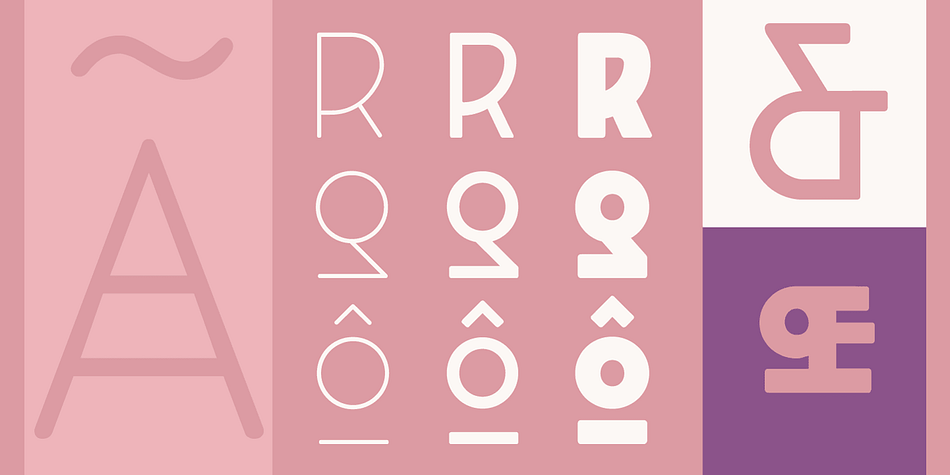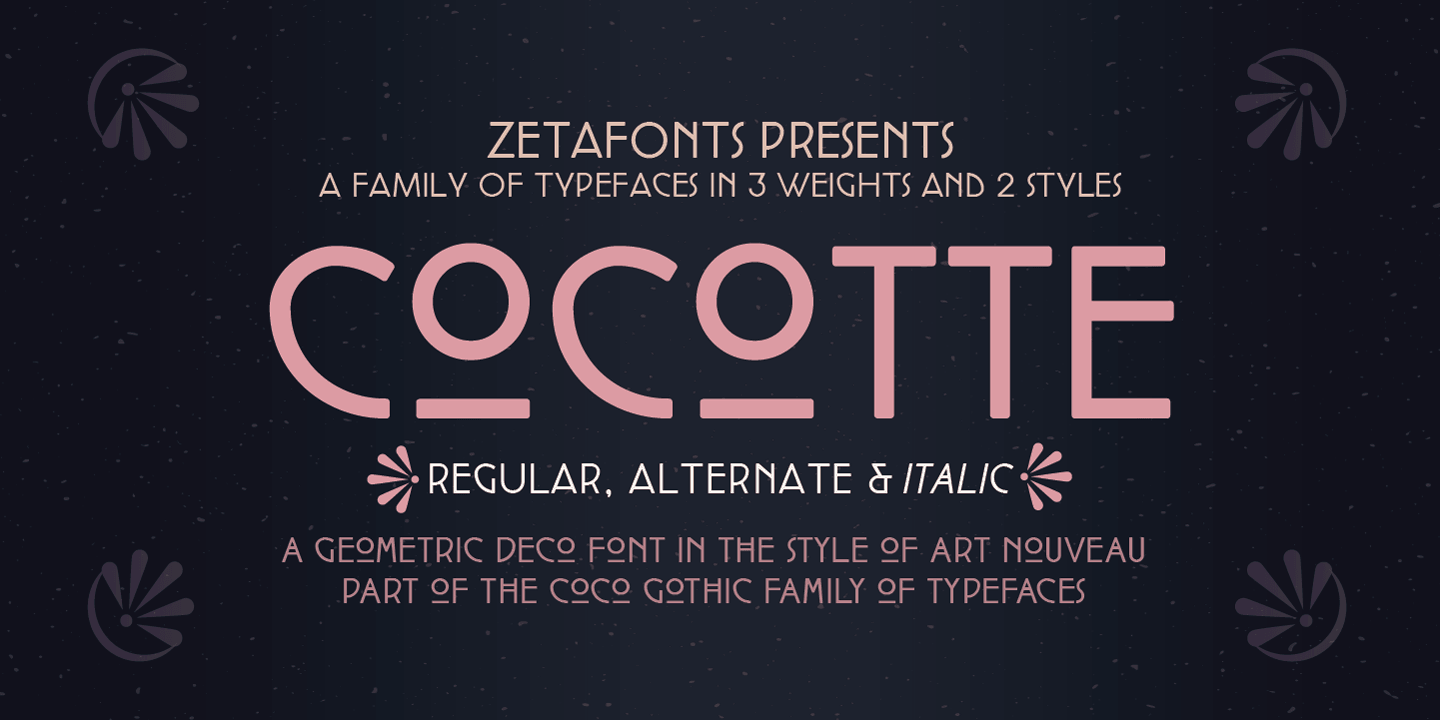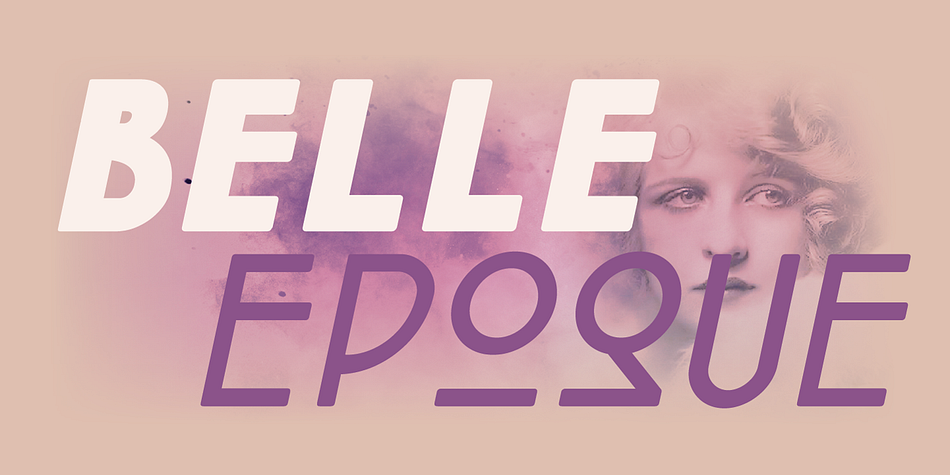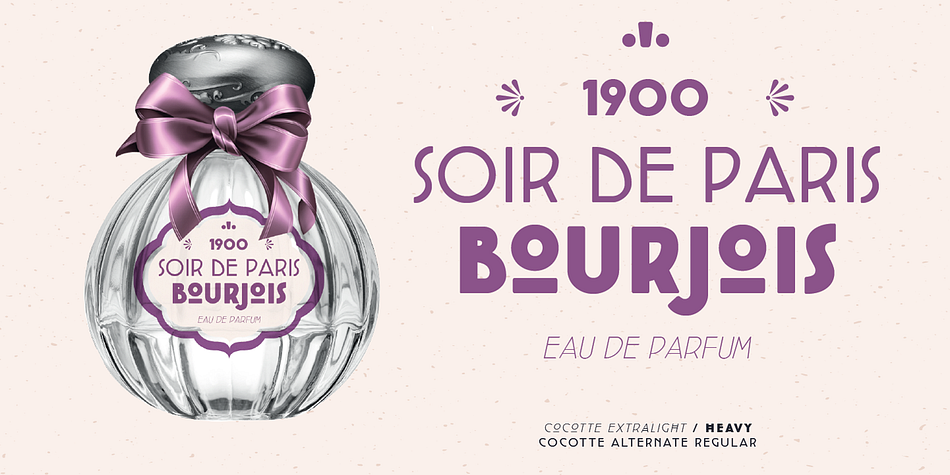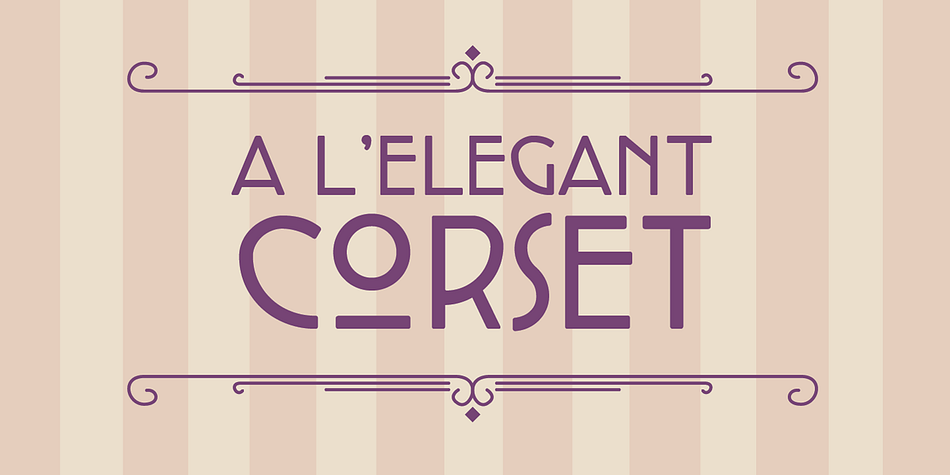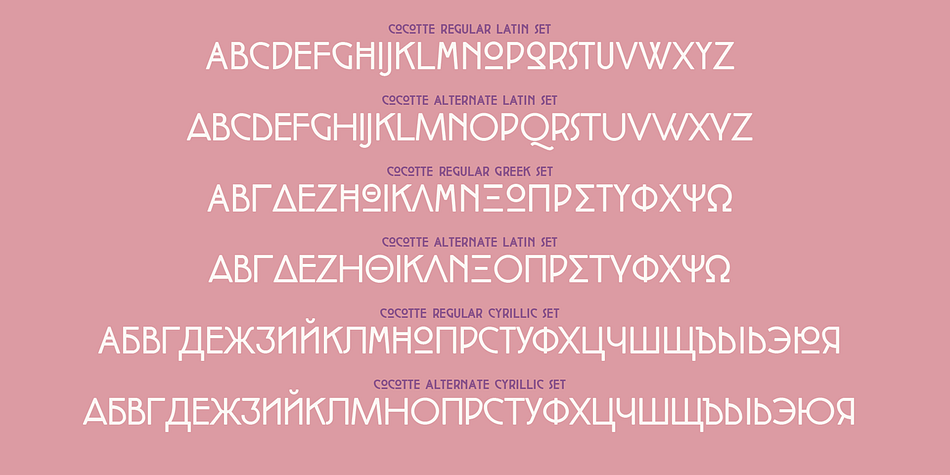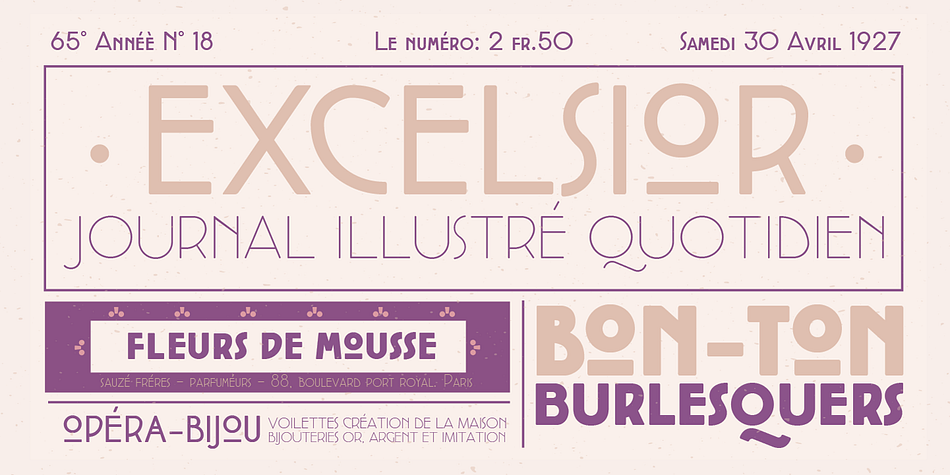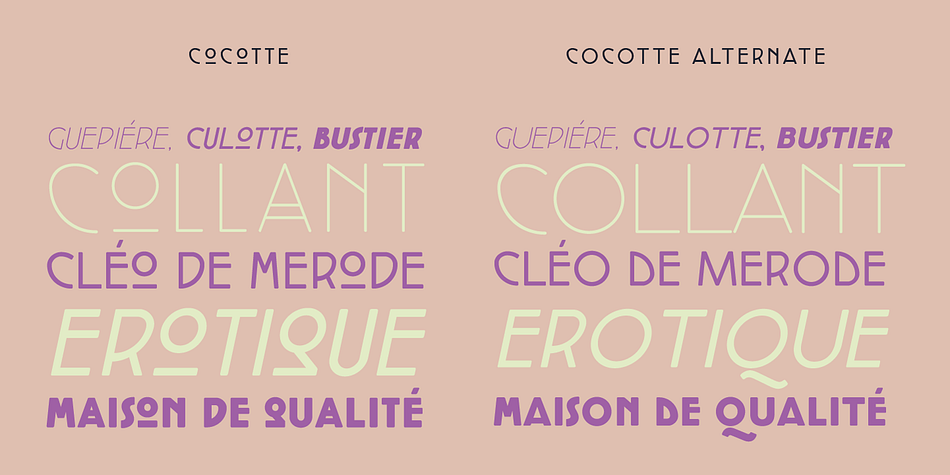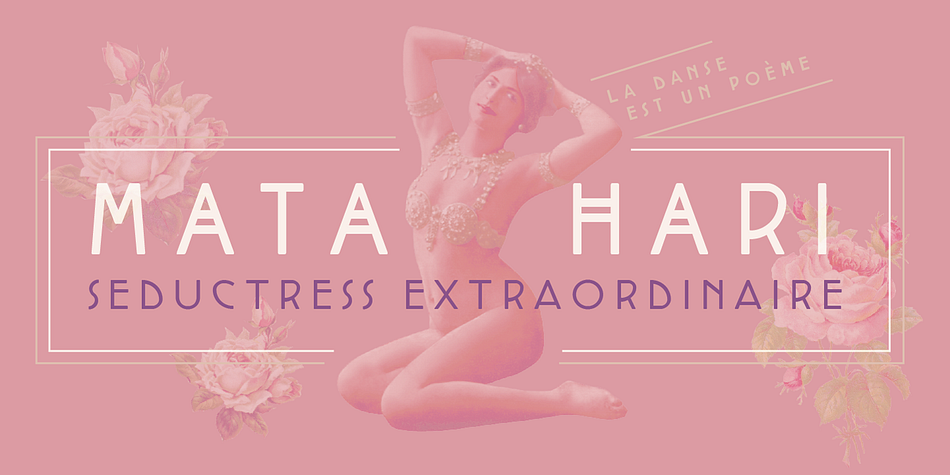
Designed by Cosimo Lorenzo Pancini, Cocotte is an art nouveau, arts and crafts and display sans font family. This typeface has twelve styles and was published by Zetafonts.
Cocotte is a small caps sans serif display typeface inspired by the graphic style of early art nouveau. It comes in three weights with matching italics and features a regular style, inspired by arts & crafts and geometric Jugendstil, and an alternate style more reminiscent of french and Italian art nouveau.
Cocotte and Cocotte Alternates are the 1900 and 1910 versions of the Coco Gothic typeface family, a contemporary geometric sans serif typeface with slightly rounded corners featuring historical versions for each decade of the last century: an encyclopedia of styles ready to transform itself and adapt to the mood of your text. Cocotte features an extended character set with support for over forty European languages and Greek and Cyrillic alphabets.
Foundry | Zetafonts |
Styles | Art Nouveau, Arts And Crafts, Display Sans |
Designer | Cosimo Lorenzo Pancini |